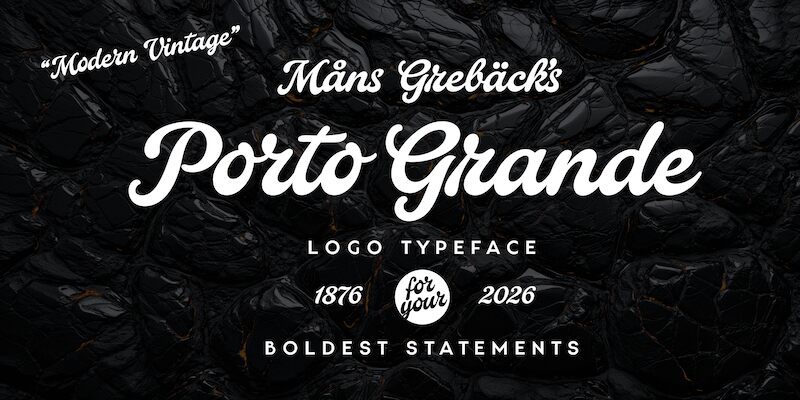
Porto Grande font
Porto Grande
Porto Grande is a modern vintage script that features a confident, flowing style. It successfully combines the charm of classic sign painting with a contemporary smoothness. This unique font is perfect for adding a touch of elegance to your projects.